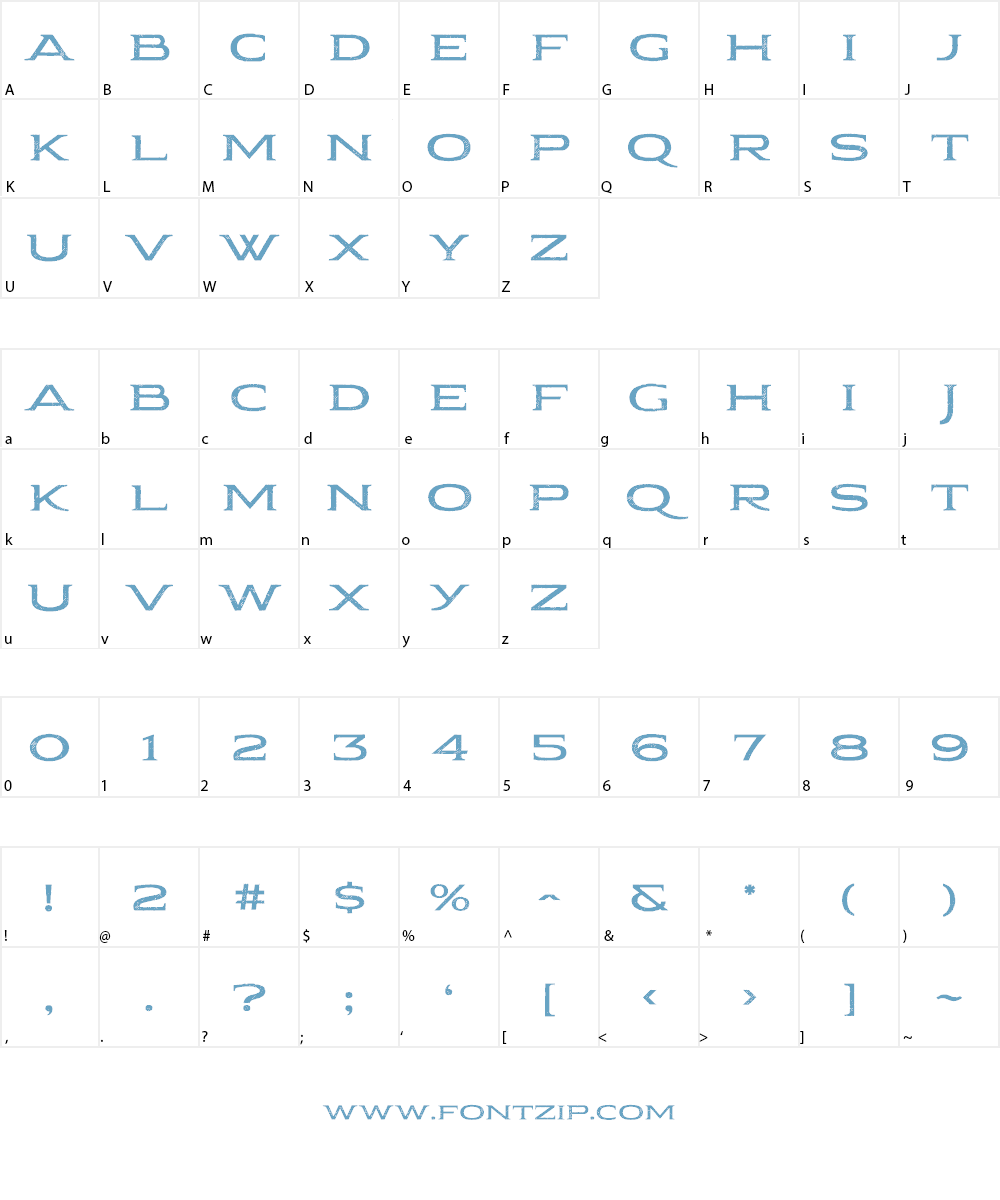
Pauraque Serif & Sans is the perfect wide and legible companion. It's experimental, and at the same time it's easy on the eyes, retaining both a classic elegant look and a modern geometric construction in a font you haven't seen before. This makes it extremely usable in many kind of projects.
It comes in clean and rough versions. Use it for titles, logos and short text or pair it with your favorite script font. Some subtle alternates can be obtained using uppercase/lowercase.
*This strange bird called Pauraque came to my house to bring me bad news but also to give me the strenght to overcome them. Pauraque font is part of this effort.